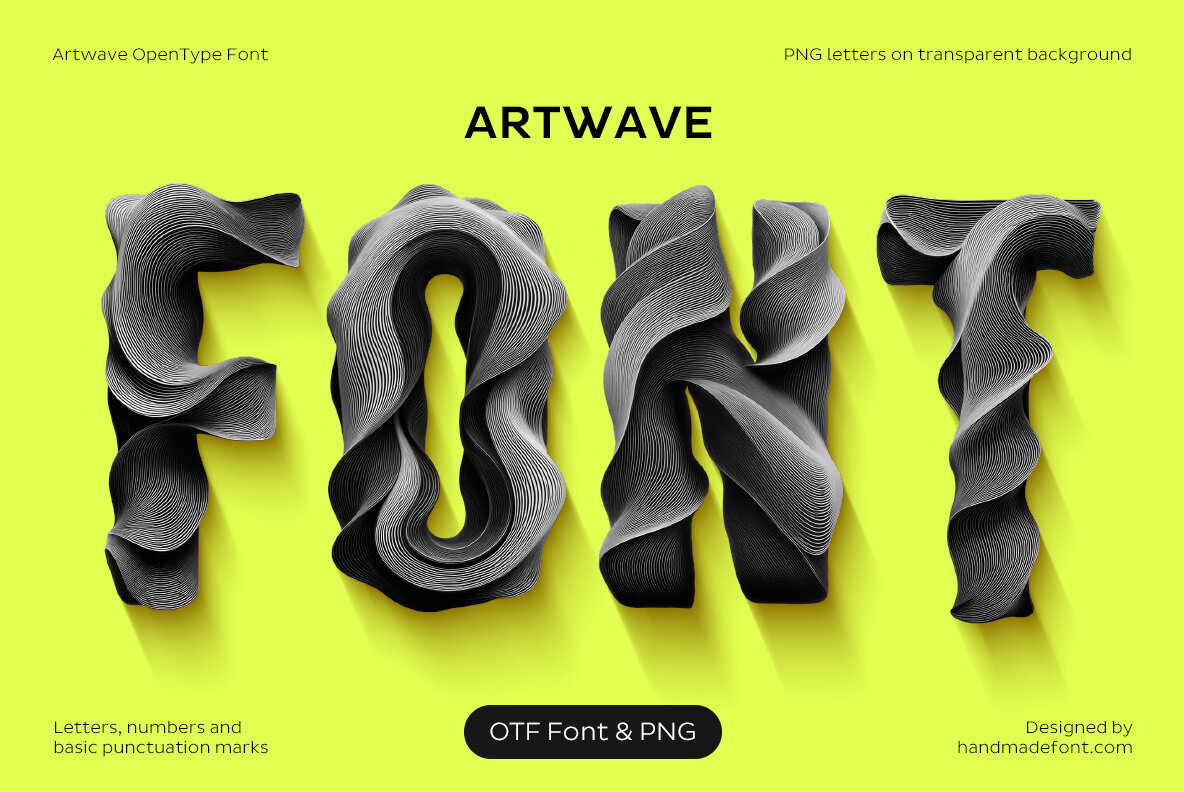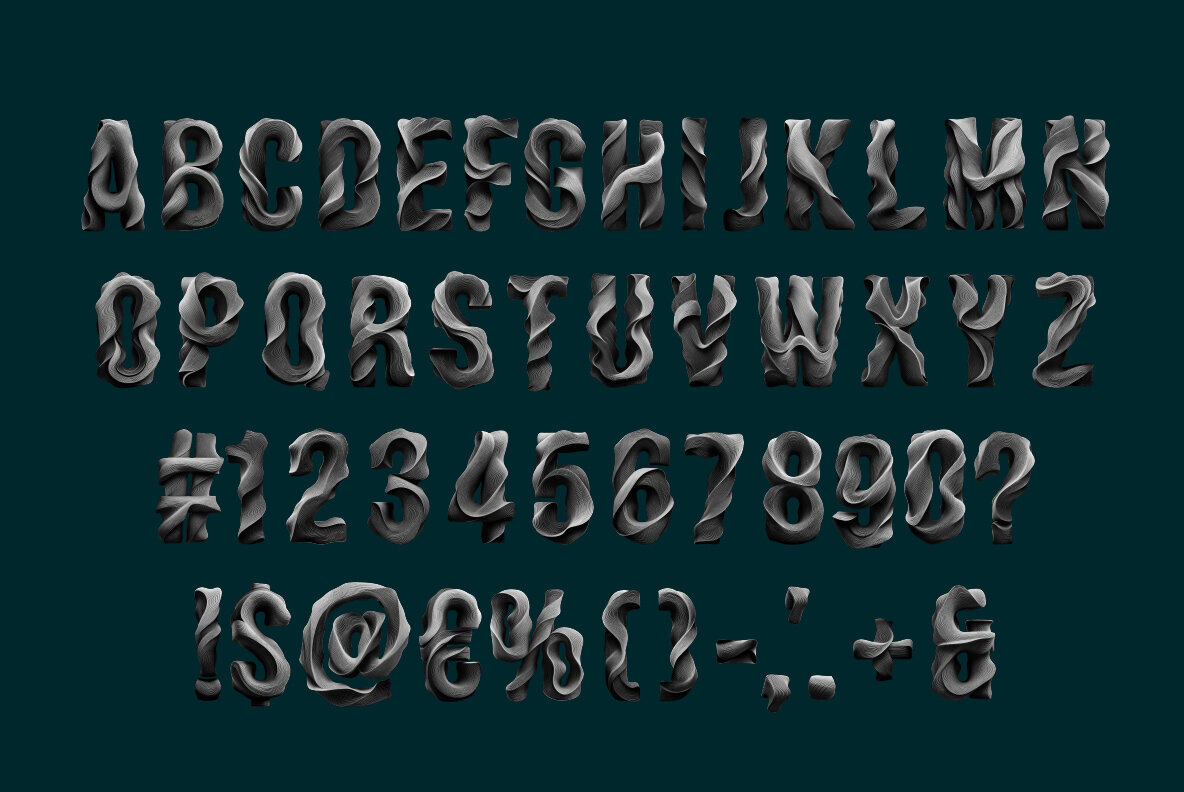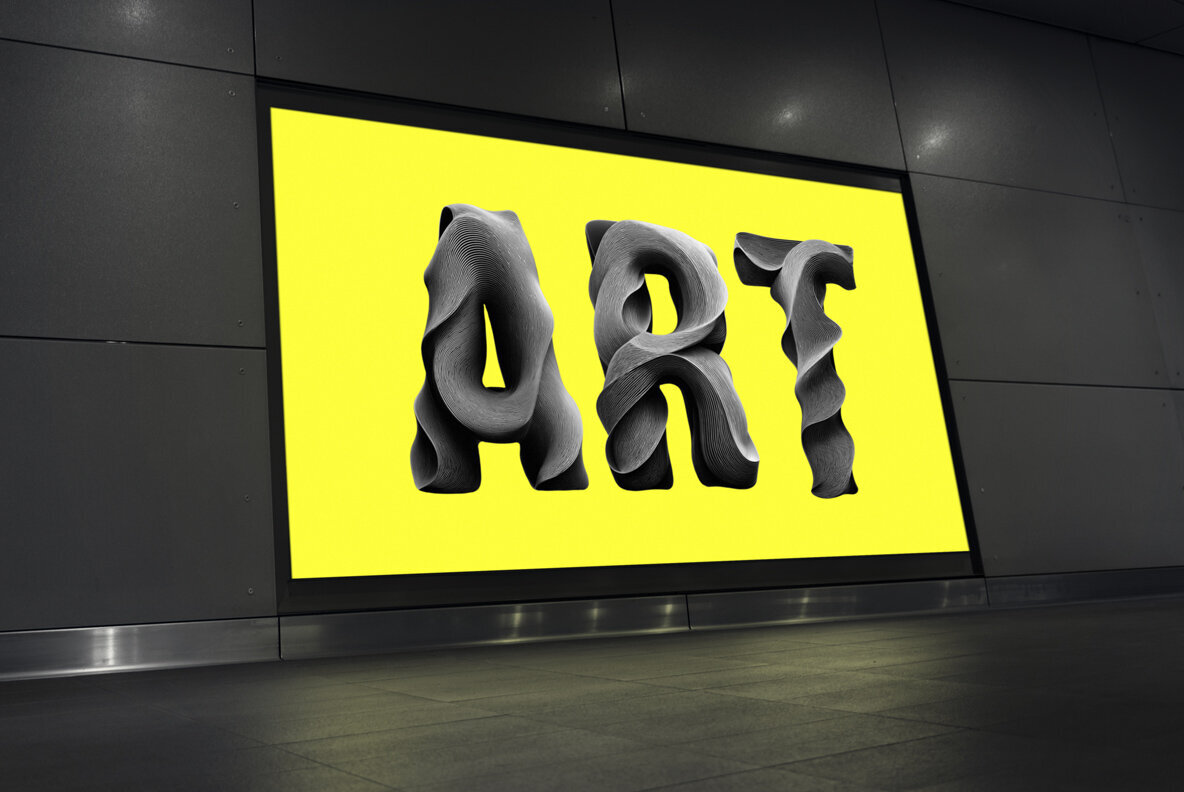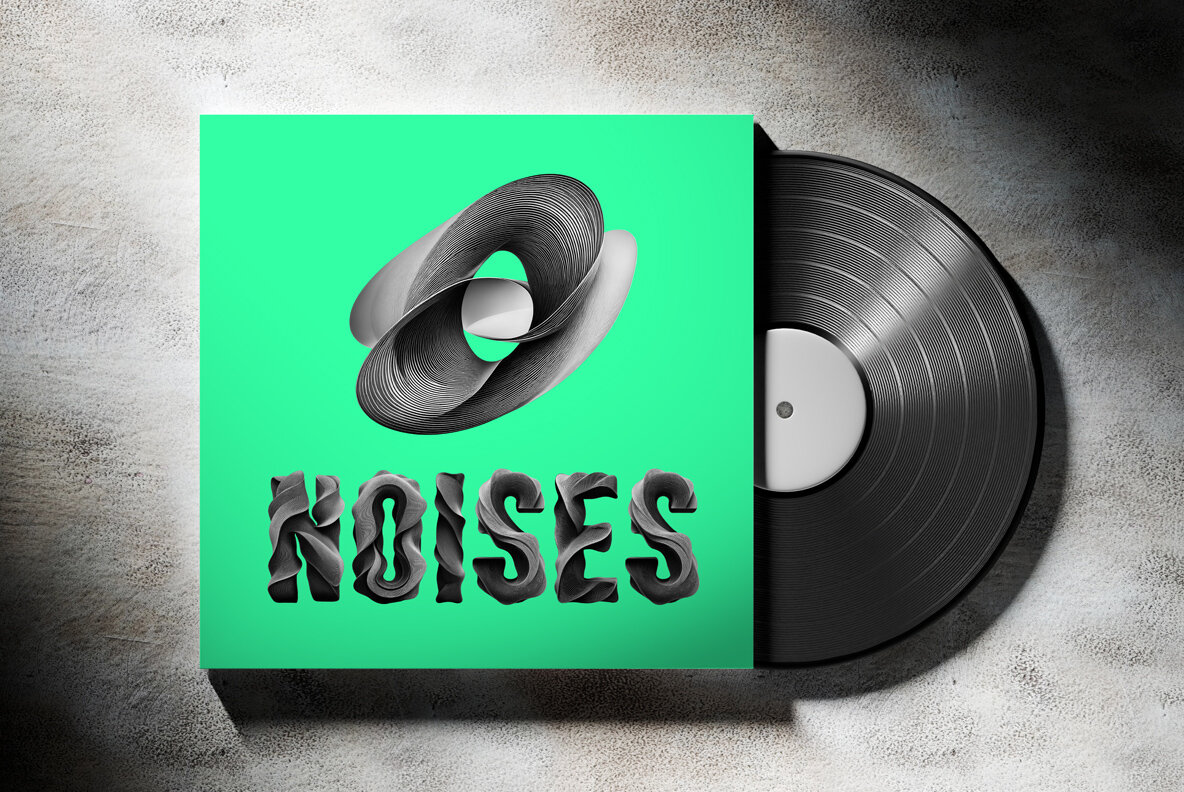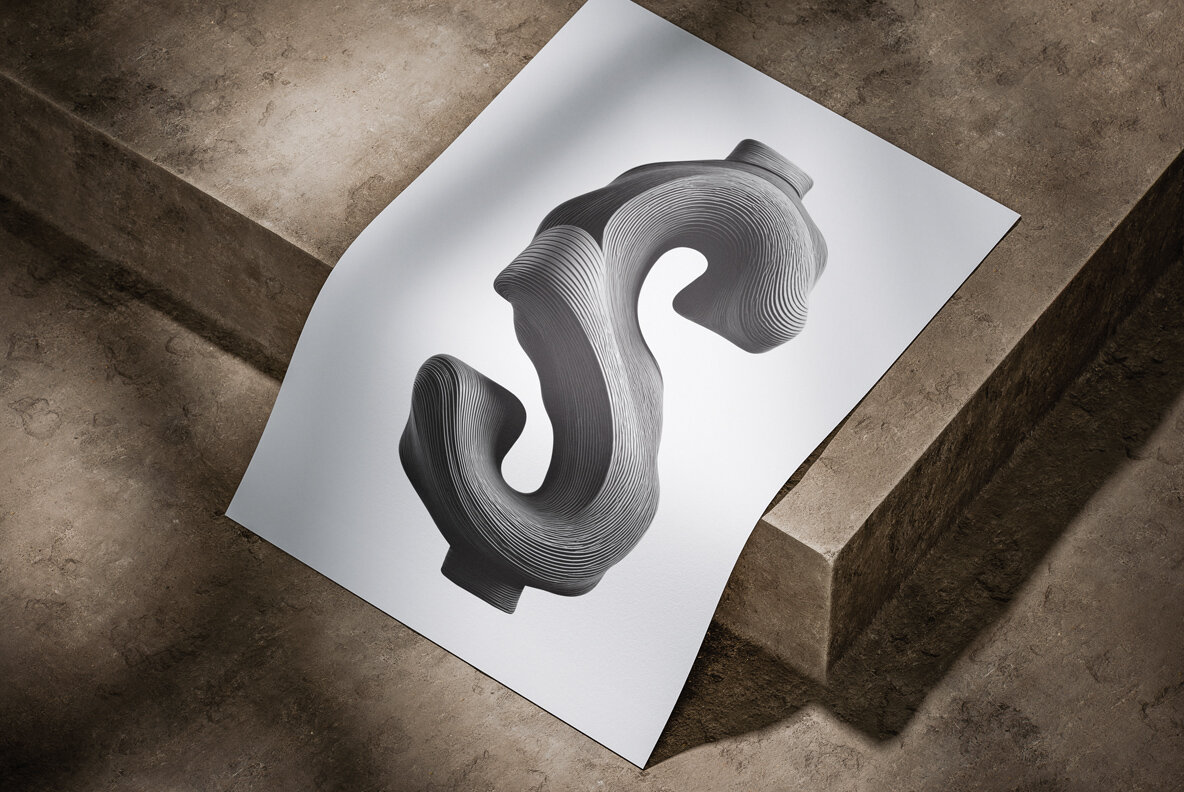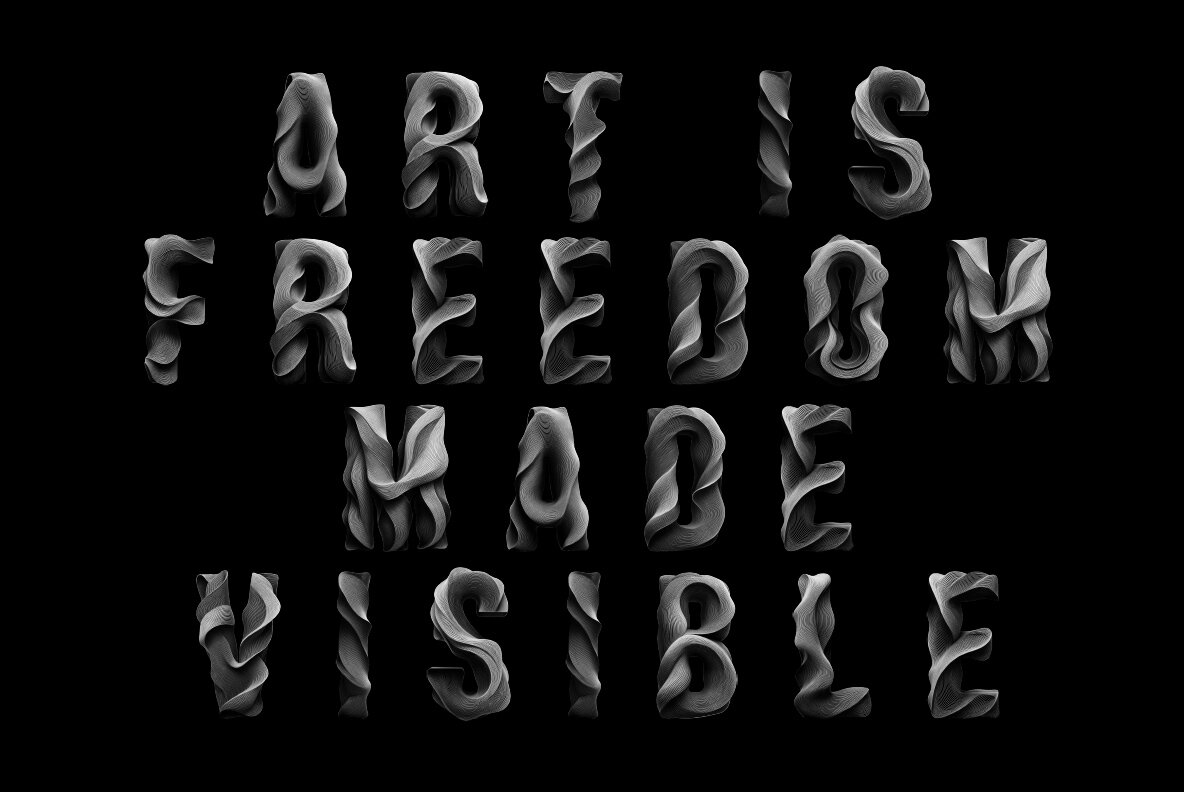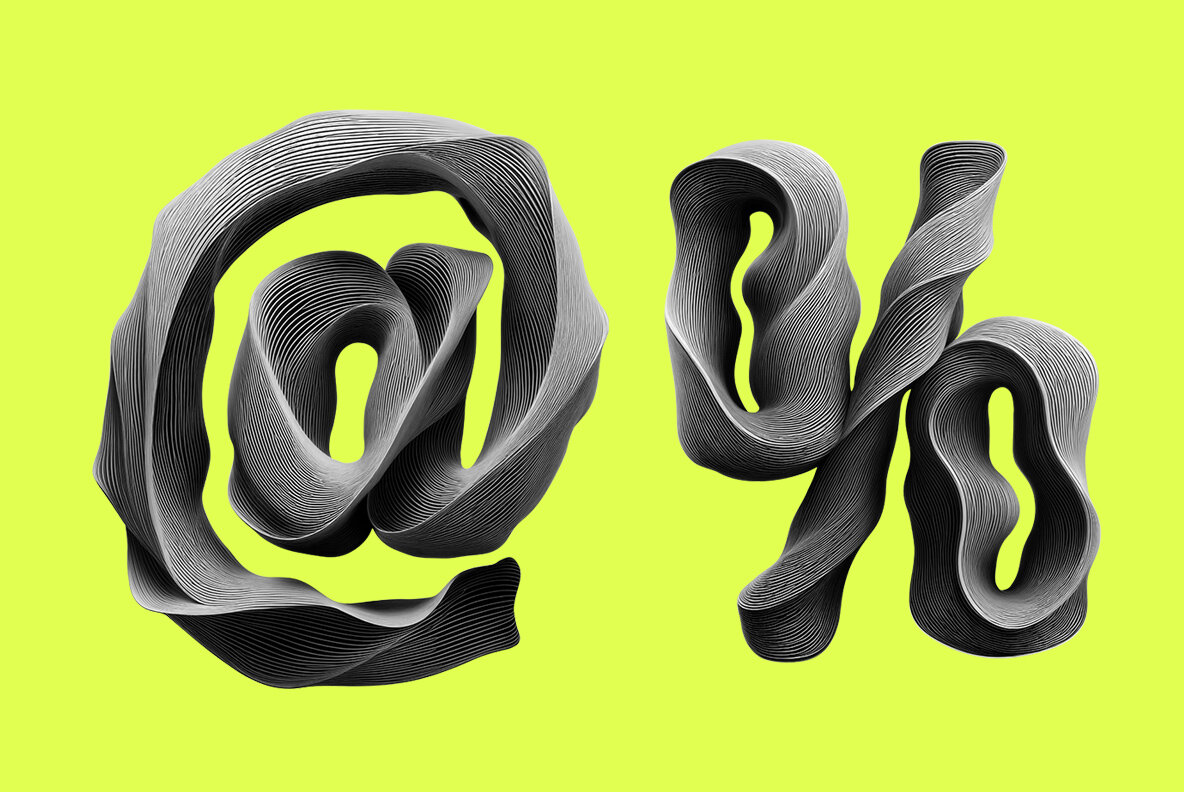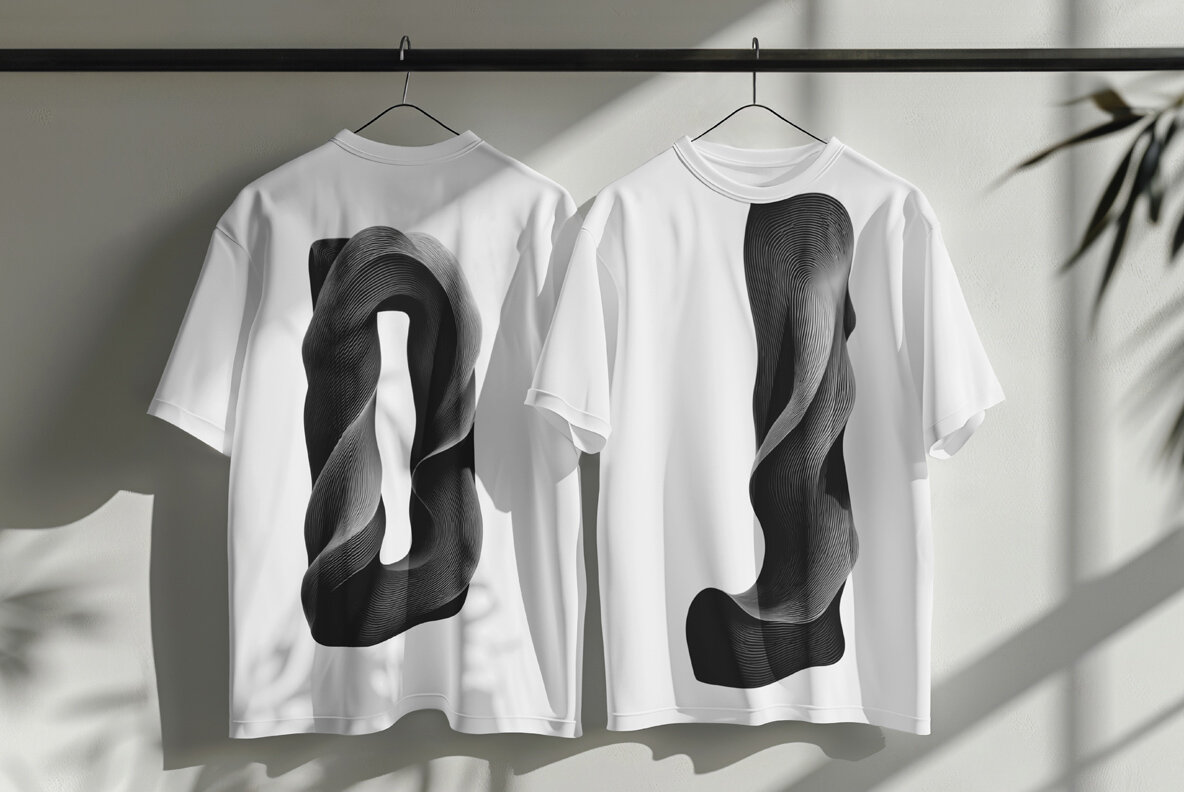
Artwave: A Bold Artistic Expression
Artwave redefines typography with its dynamic and striking presentation, turning each letter into an artful explosion. This typeface channels a rebellious spirit, creating an aesthetic resembling a liquid sculpture in motion. It's as if calligraphy had a caffeine rush, twisting into futuristic ripples that infuse words with visual drama. Cloaked in bold, artistic black, Artwave echoes the genius of classical artists through digital innovation.
This edgy typeface makes a profound statement, transforming ordinary text into standout masterpieces. Designed for the adventurous, Artwave is a high-definition OpenType font containing uppercase characters, numerals, and basic punctuation. It thrives in compatible applications supporting color bitmap fonts like Photoshop, Illustrator, and InDesign.
- Uppercase Characters, Numerals, and Basic Punctuation
Let Artwave enhance your designs with its artistic vigor, challenging the norms and making every project a visual spectacle.